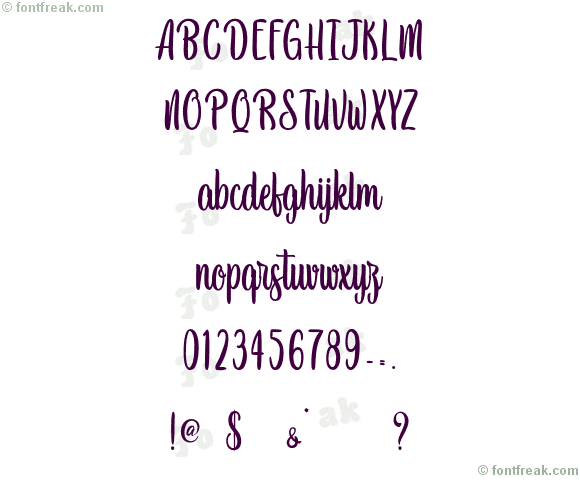
Newest Oldest - Personal Use
About Newest Oldest - Personal Use
Newest Oldest - Personal Use, designed by Suthi Srisopha, is a captivating handwritten font that effortlessly combines a modern aesthetic with a touch of nostalgia. This unique typeface features a fluid stroke weight, providing an organic feel that mimics natural handwriting. The contrast between thick and thin strokes adds depth, making it visually engaging and perfect for various design projects. The spacing is thoughtfully executed, ensuring readability while maintaining an artistic flair.
This versatile font is ideal for a variety of creative applications. It shines in wedding invitations, where its elegant curves can convey romance and intimacy. Additionally, it’s well-suited for movie posters, allowing designers to evoke a sense of whimsy or nostalgia. Restaurant menus also benefit from its inviting style, making dishes appear more appealing and enhancing the dining experience. Furthermore, it can be a great choice for personal branding materials, such as logos or social media graphics, giving small business owners a distinctive edge.
What sets Newest Oldest apart is its blend of contemporary design and classic charm, making it a standout choice for anyone looking to infuse their projects with personality. This font not only enhances visual storytelling but also connects with audiences on a more intimate level, ensuring that your designs leave a memorable impression. Whether you’re crafting a heartfelt invitation or an eye-catching poster, Newest Oldest is sure to bring your vision to life.